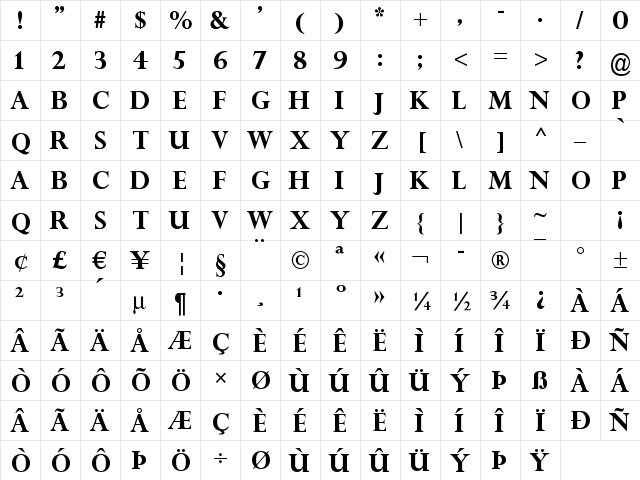
Title Wave Regular
| Foundry | Digital Graphic Labs |
| Designer | Digital Graphic Labs |
Design Context for Title Wave Typeface
Title Wave takes a measured approach to typography — its balanced proportions and neutral character make it a reliable workhorse for both digital and print work.